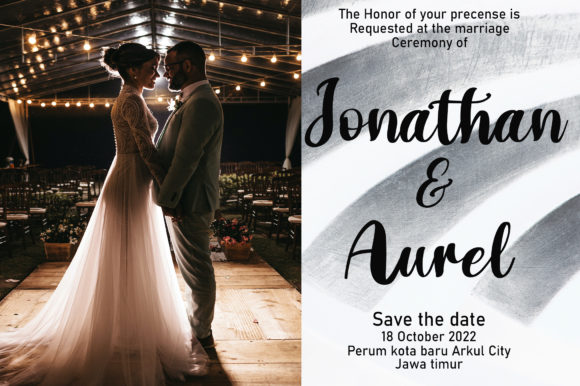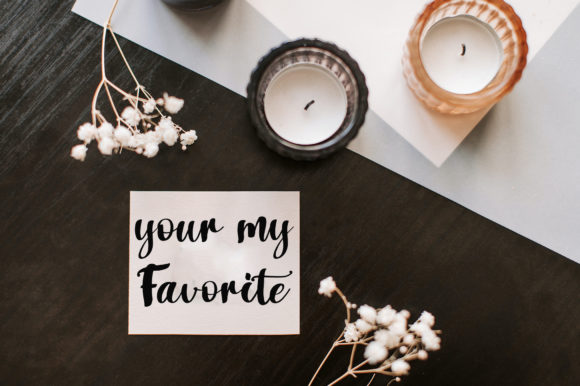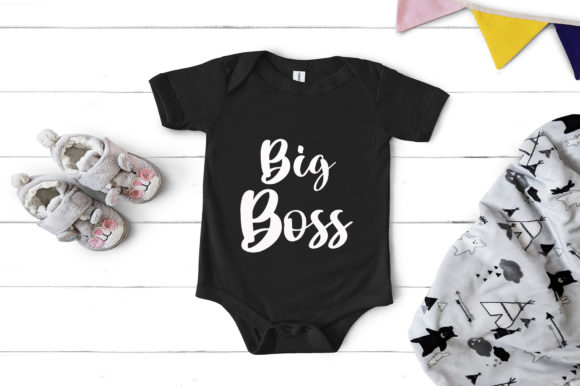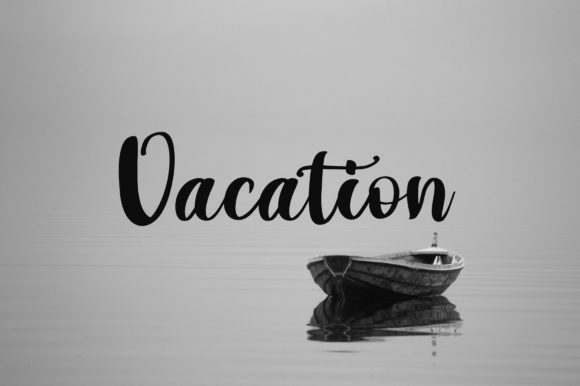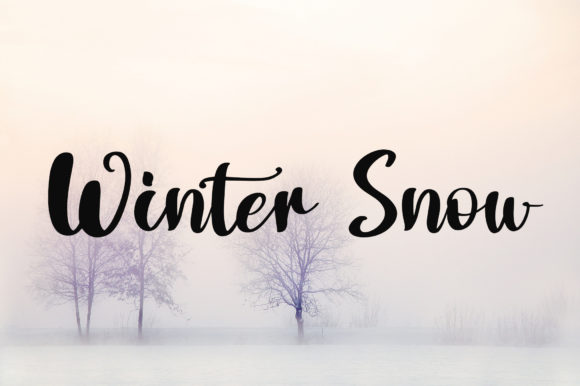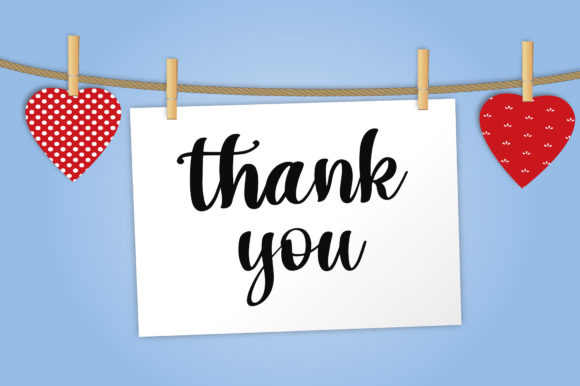
Introduction to Cristian Font
Cristian is a beautiful script font.
It is perfect for wall displays, wedding invitations, social media posts, logos, advertisements, product packaging, product designs, labels, photography, watermarks, invitations, stationery, and any project that requires a handwritten touch .